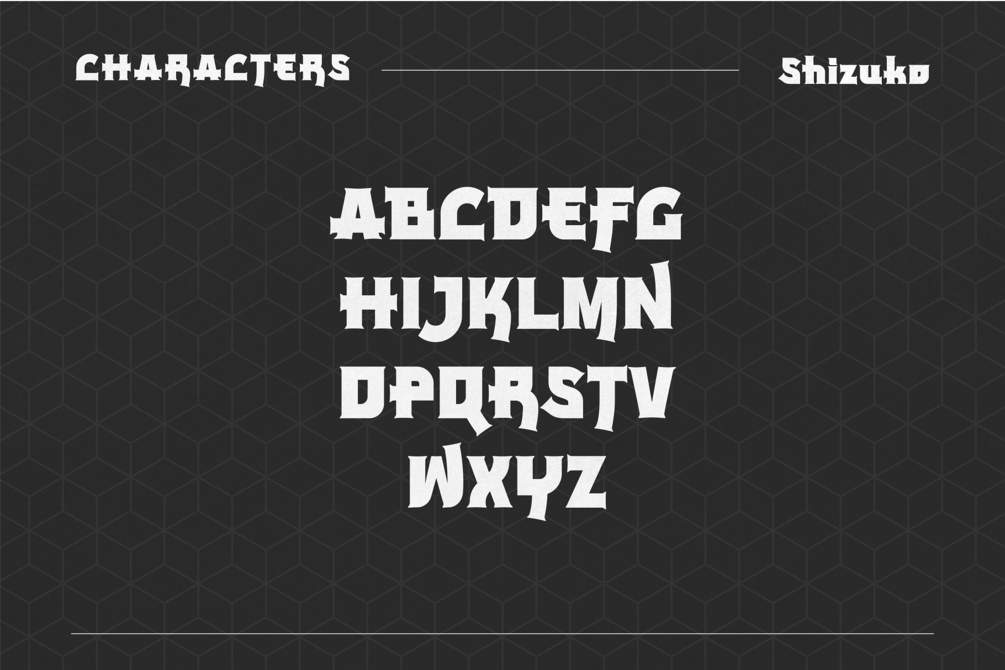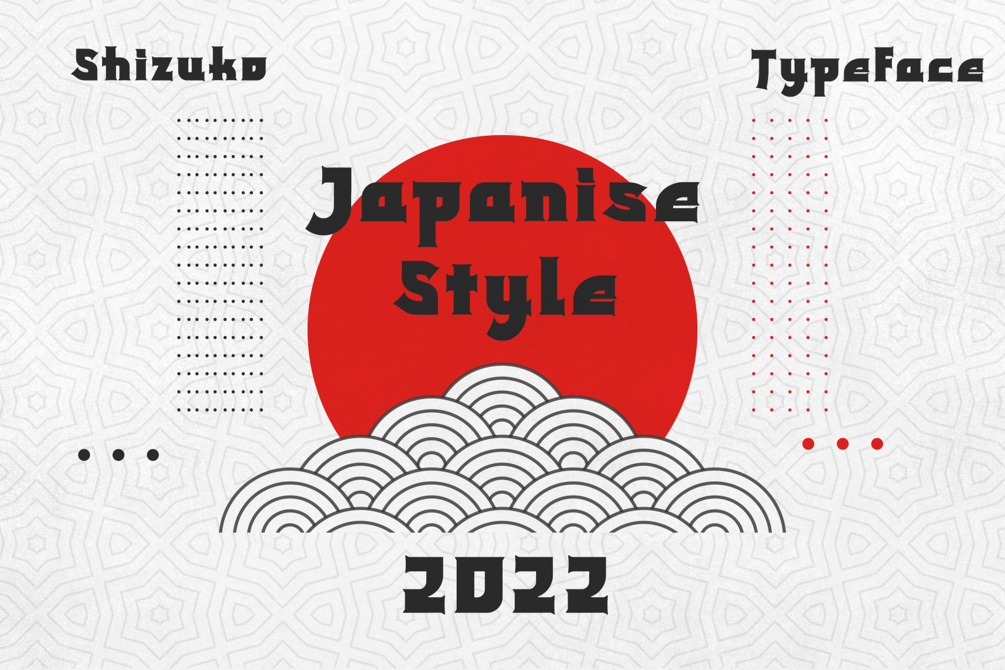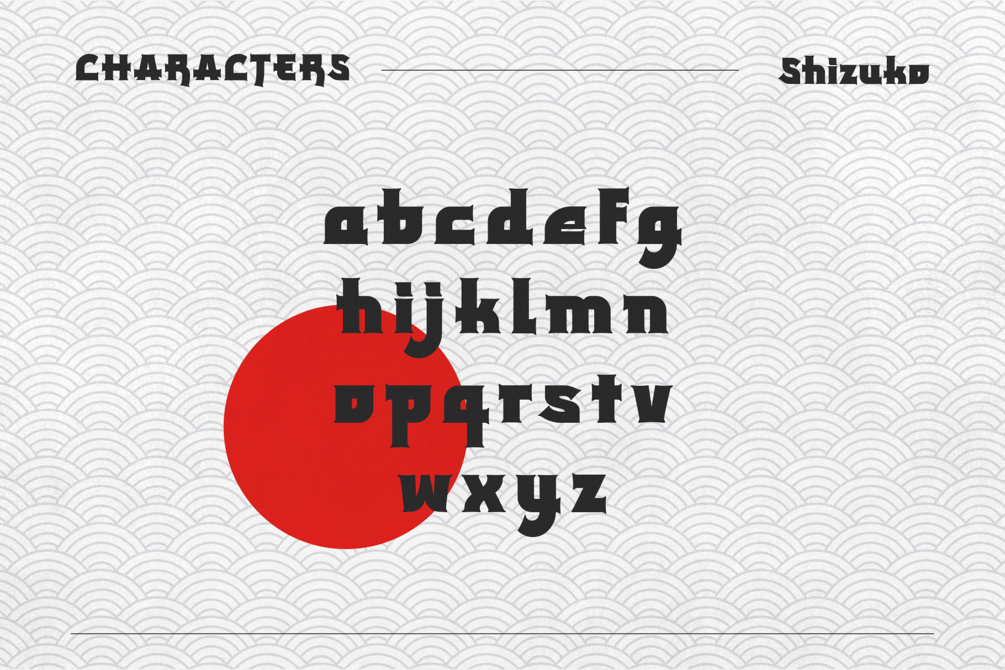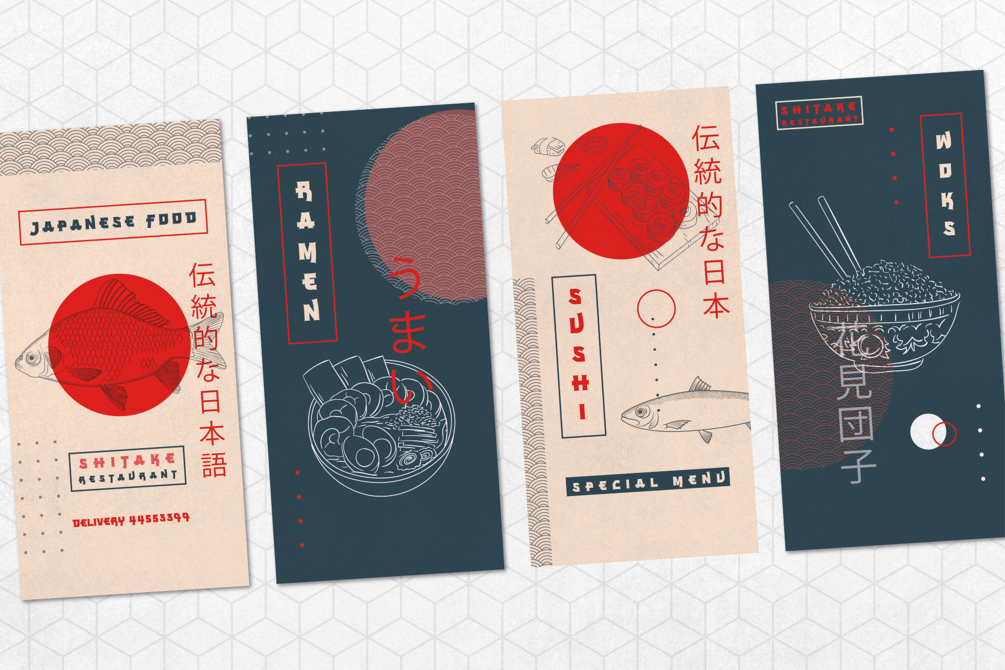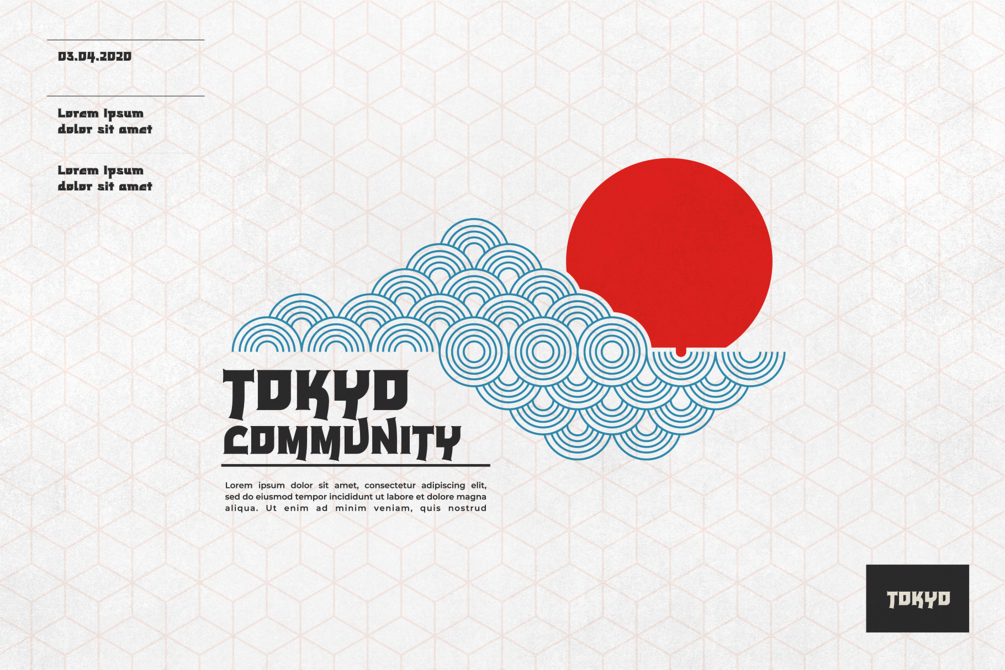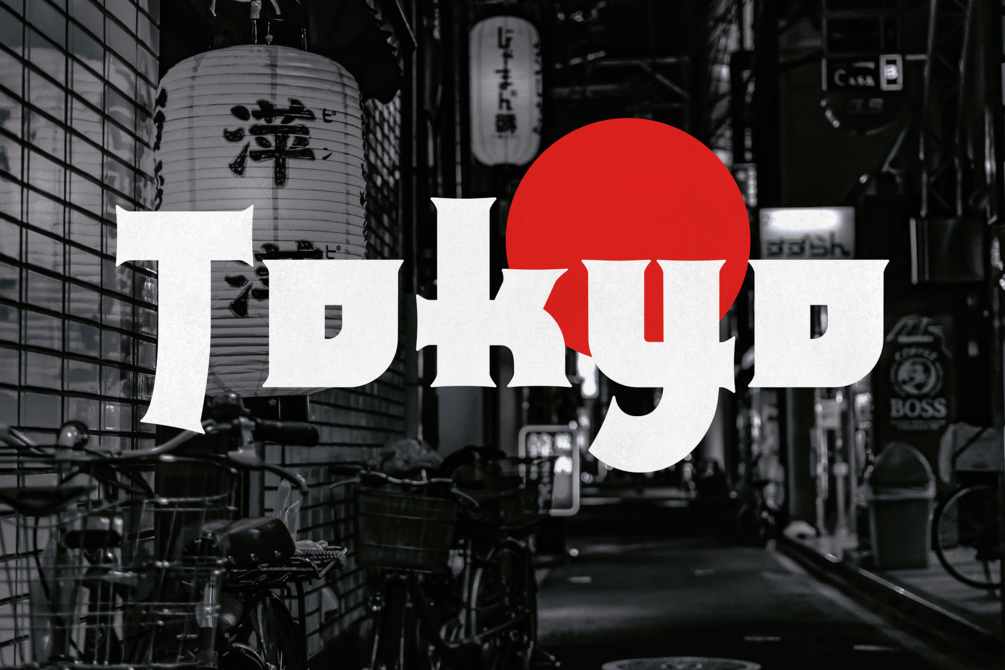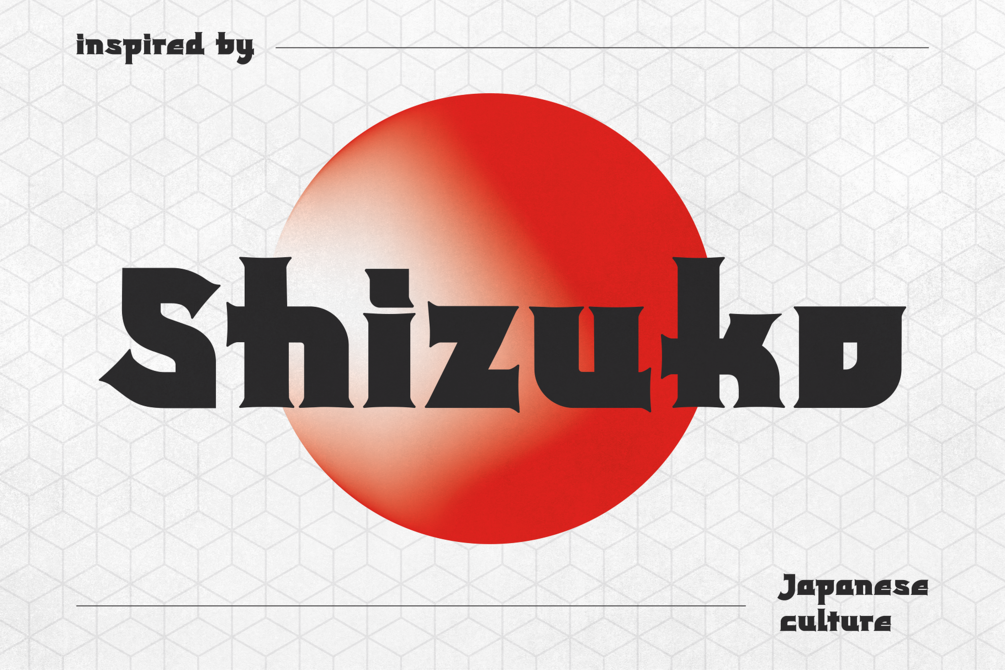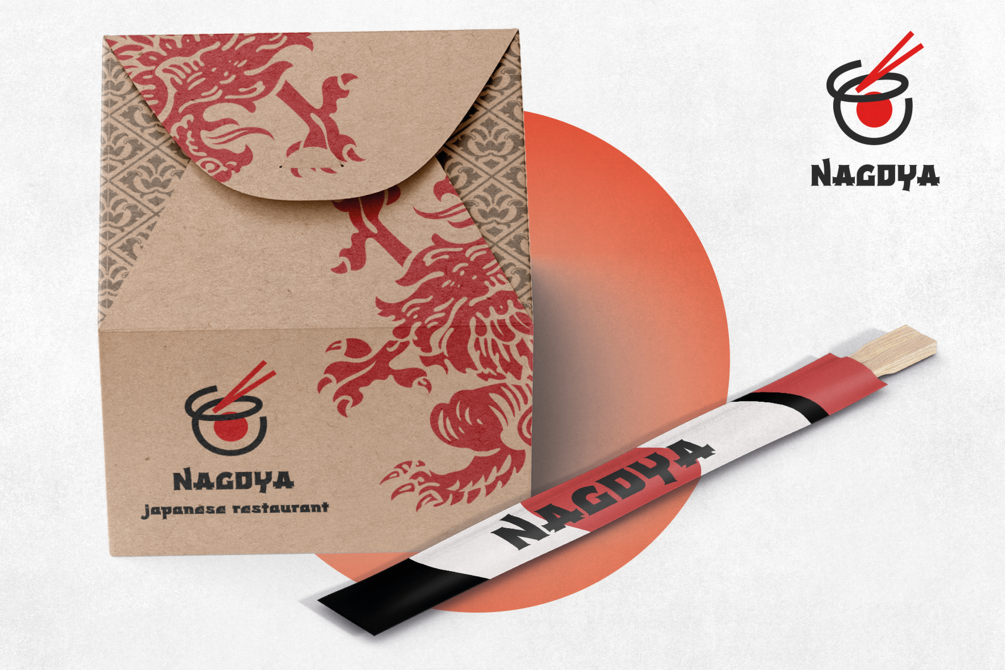
Shizuko - Modern Japanese Display
Shizuko is a modern display typeface inspired by Japanese kanji fonts. This eye catching font comes in English style (there are no Japanese letters). You can use Shizuko to create rad posters, emblems, stickers, magazines, websites, social media posts, logos, apparel, packaging, and anything else your heart desires. The font is fully kerned and is ready to be used right away. Inject Asian temper and personality into your projects today with Shizuko!